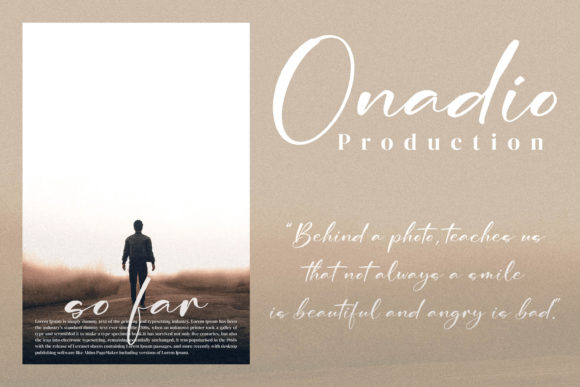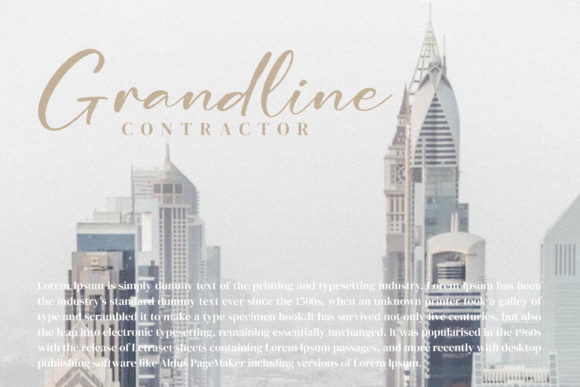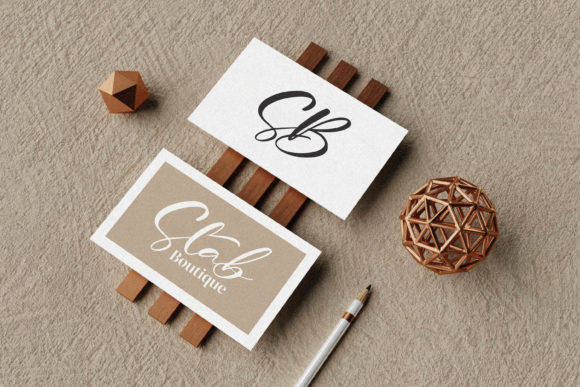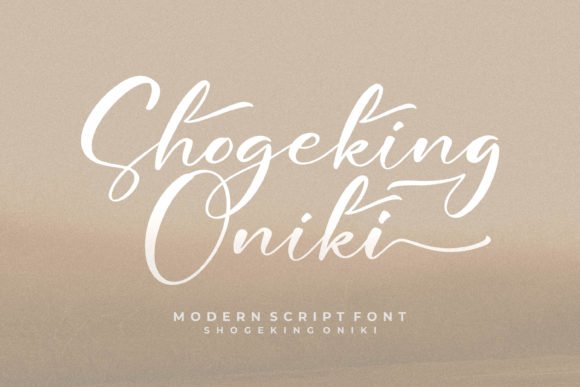
Introduction to Shogeking Oniki Font
Shogeking Oniki is a beautiful, well balanced and cursive script font.
It is defined by smooth curves and is perfect for fashion branding or editorial designs This font is PUA encoded which means you can access all of the glyphs and swashes with ease.
Key Features of Shogeking Oniki Font